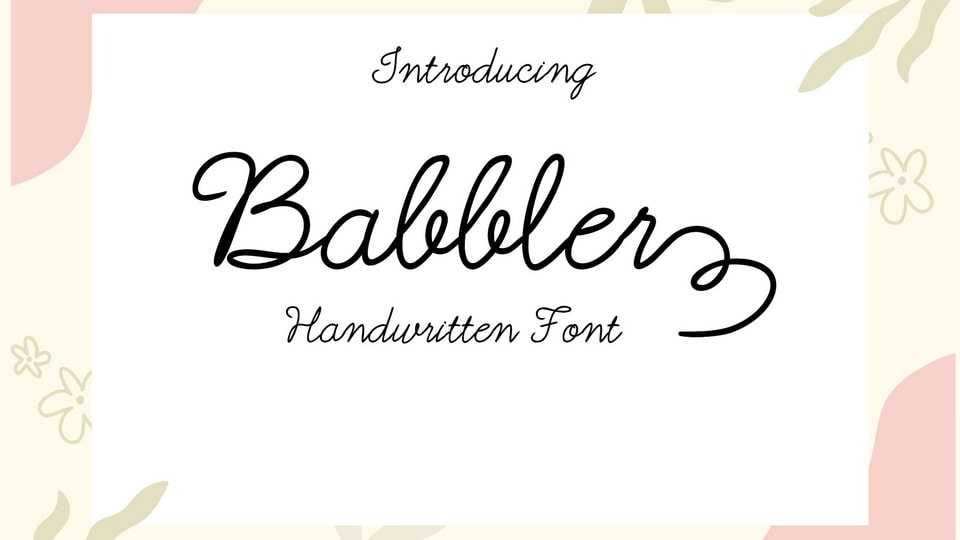
Download Babbler font, a charming handwritten typeface that captures the spirit of simple creativity. With playful and natural strokes, Babbler brings a touch of elegance and warmth to your project.